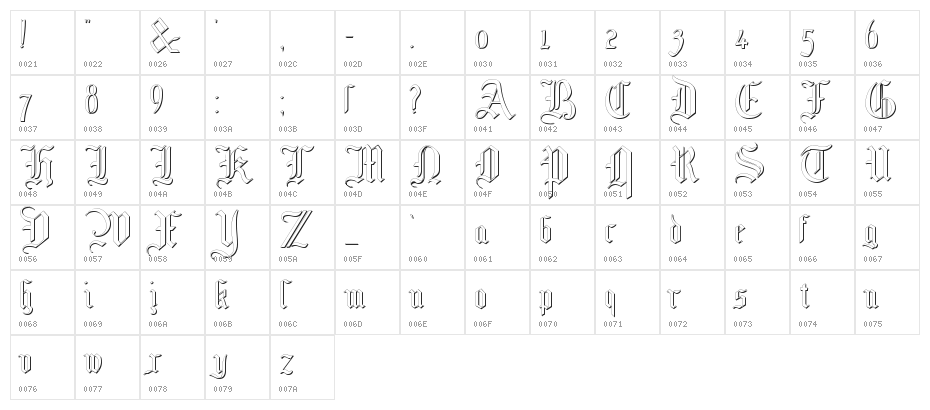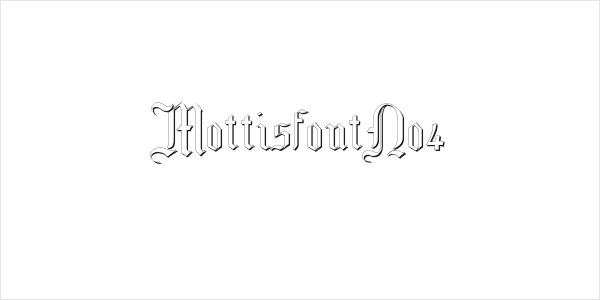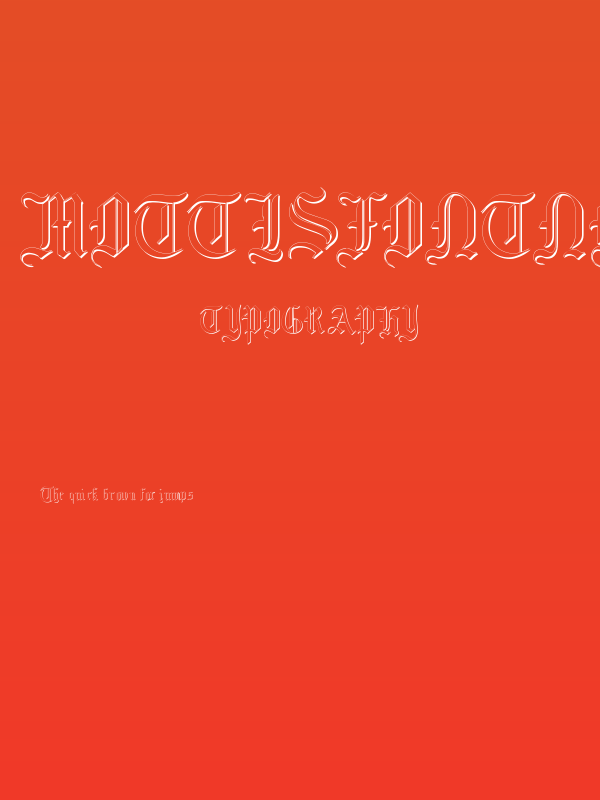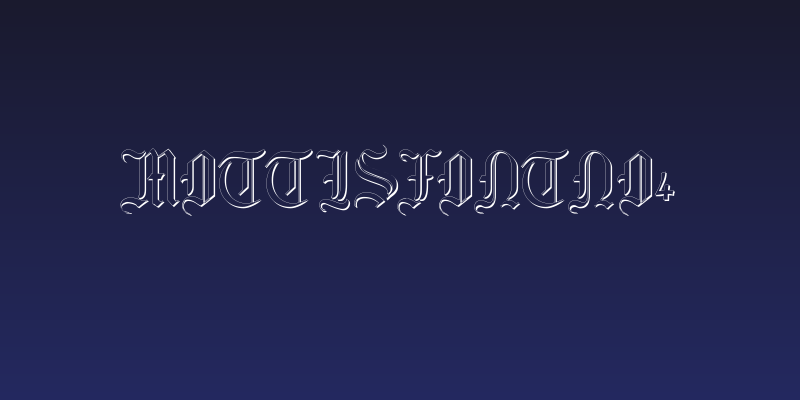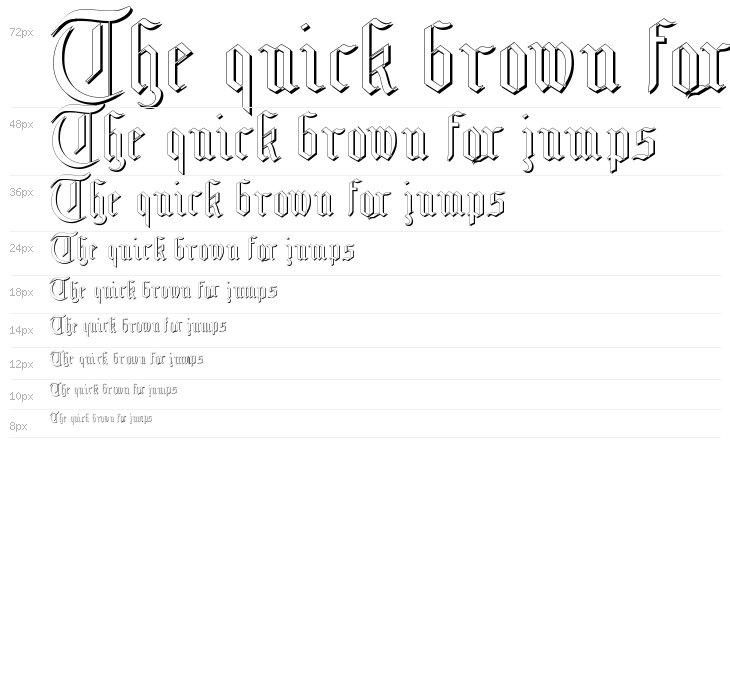
MottisfontNo4 Font
MottisfontNo4 Description
This font exhibits a classic blackletter style, characterized by its intricate and ornate letterforms. The uppercase letters are bold and dramatic, with sharp angles and decorative flourishes that give them a medieval appearance. The lowercase letters maintain the same level of detail, with a slightly more condensed form that complements the uppercase. Numbers and special characters are designed to match the overall aesthetic, featuring similar embellishments and angular strokes. The font's high contrast between thick and thin strokes adds to its striking visual impact, making it ideal for projects that require a historical or gothic touch.
| Proposed Projects | Ideal for use in historical documents, gothic-themed designs, book covers, and event invitations that require a touch of elegance and tradition. |